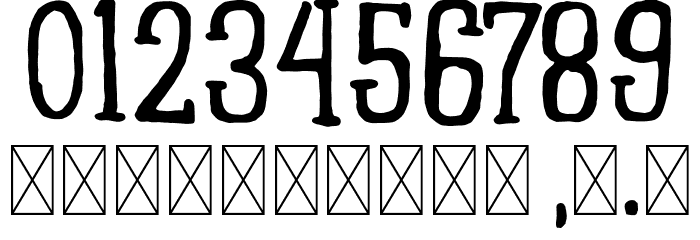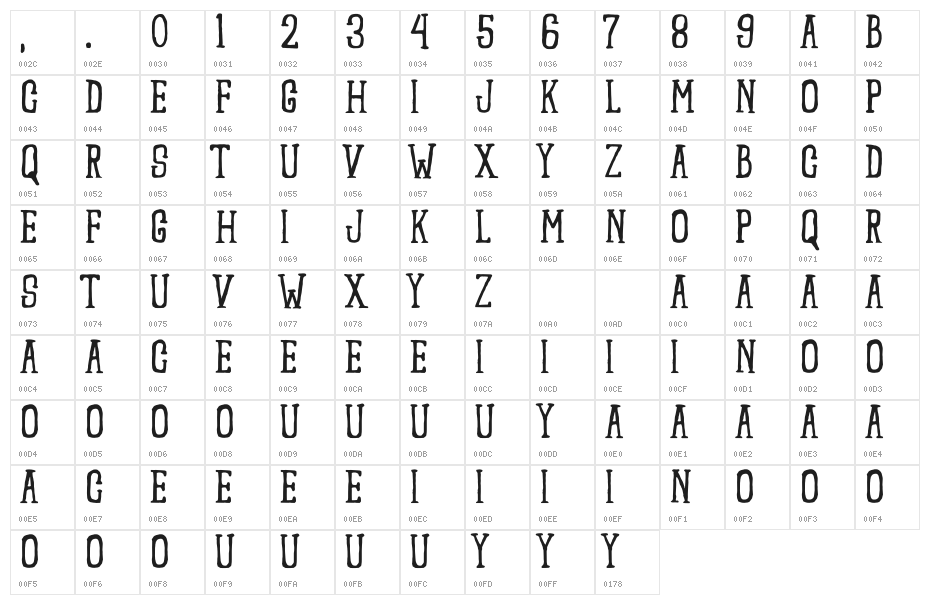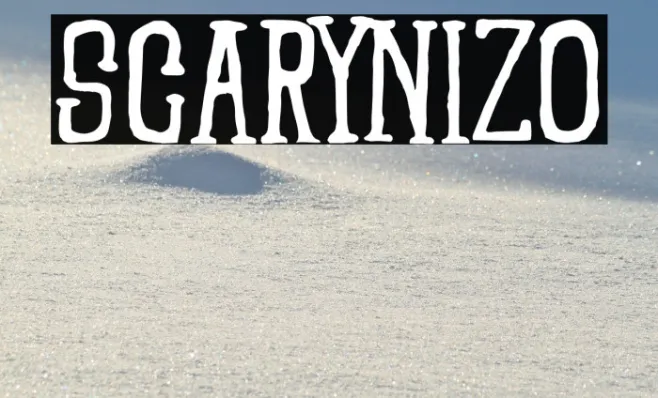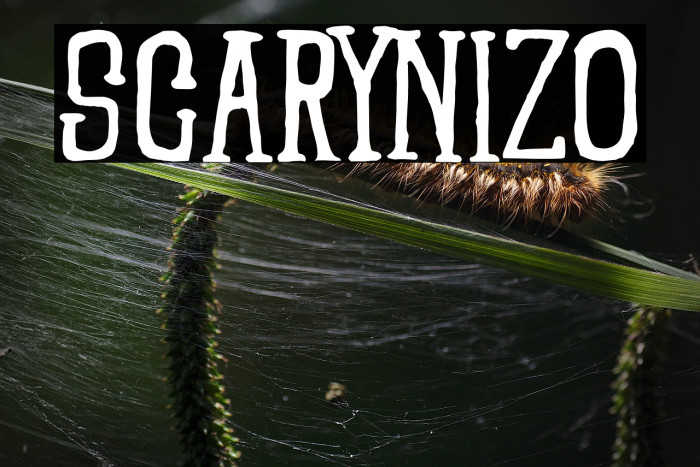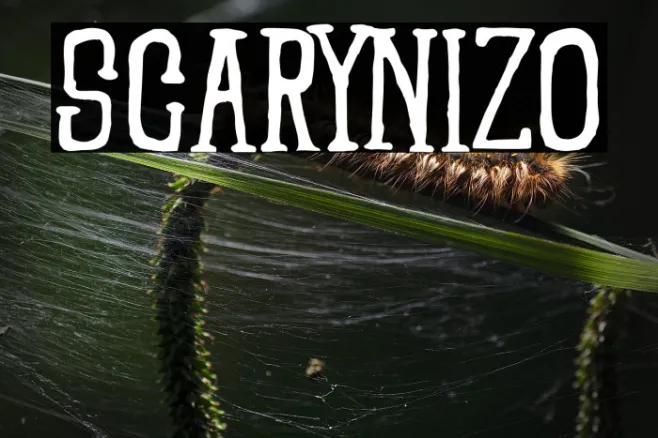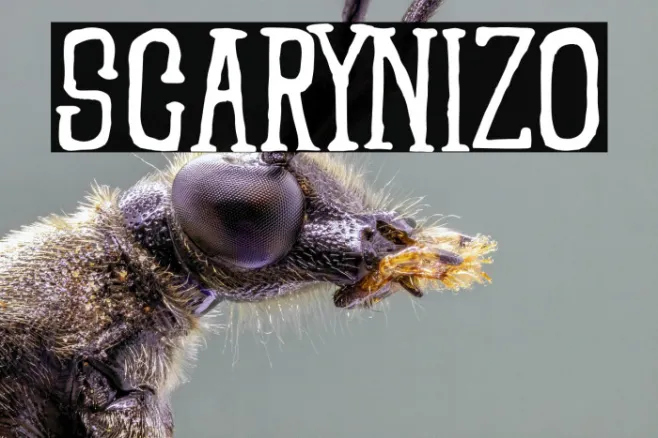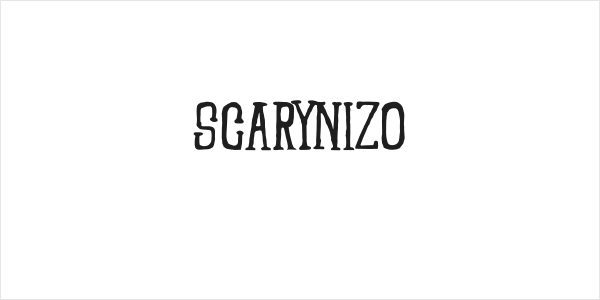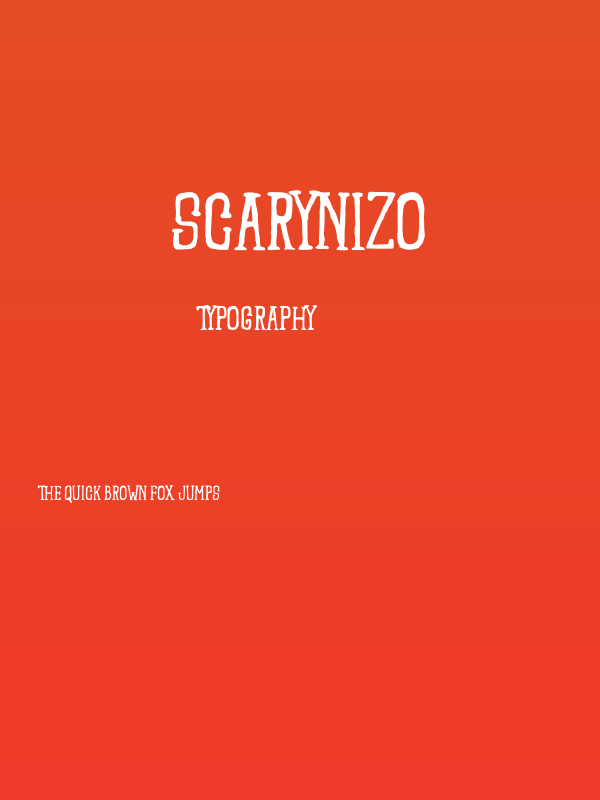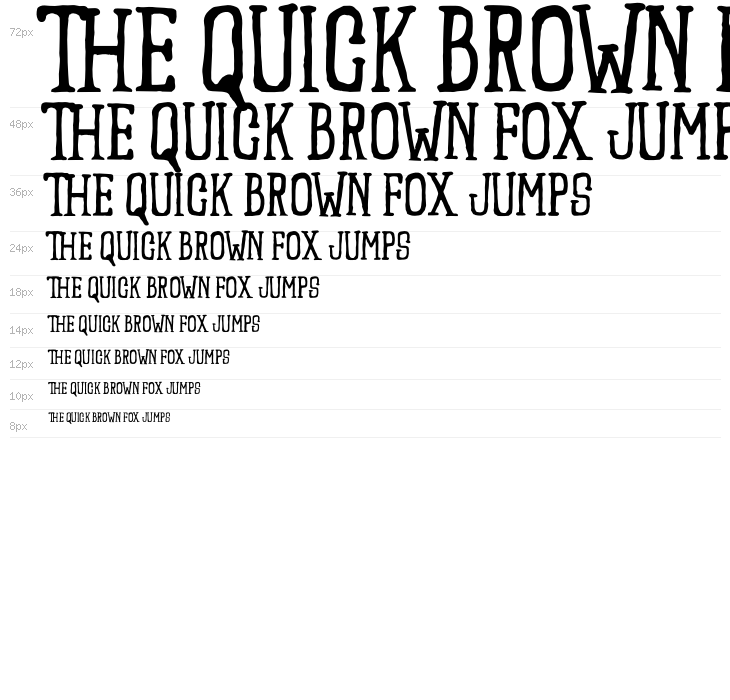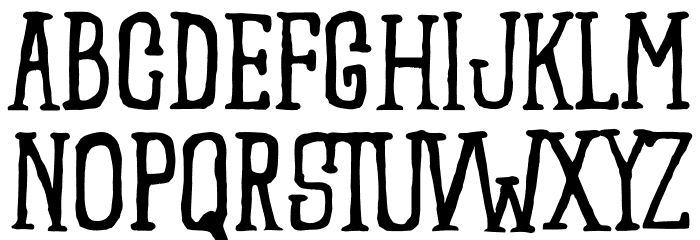
SCARYNIZO Font
SCARYNIZO Description
This font features a bold and slightly irregular design, giving it a hand-drawn appearance. The characters are tall and narrow, with a distinct vintage flair. The strokes are uneven, adding to its rustic and organic feel. The uppercase letters are particularly striking, with exaggerated serifs and a playful, yet sturdy structure. The numbers follow the same style, maintaining consistency throughout the set. This font is perfect for projects that require a touch of nostalgia or a handcrafted look.
Overall StyleVintage
Proposed ProjectsIdeal for posters, logos, and branding that require a vintage or handcrafted aesthetic.